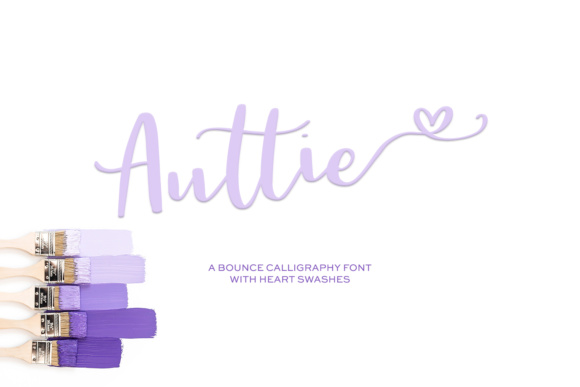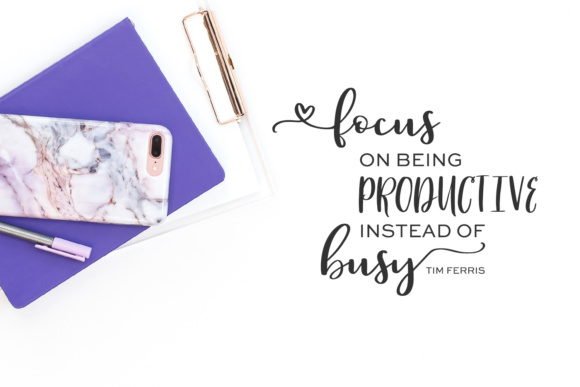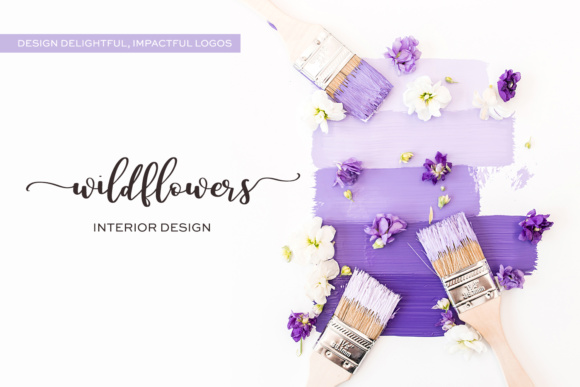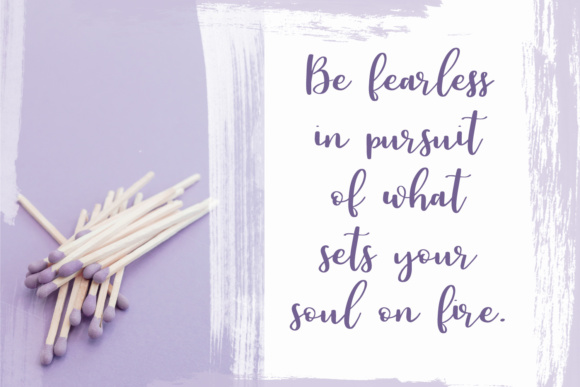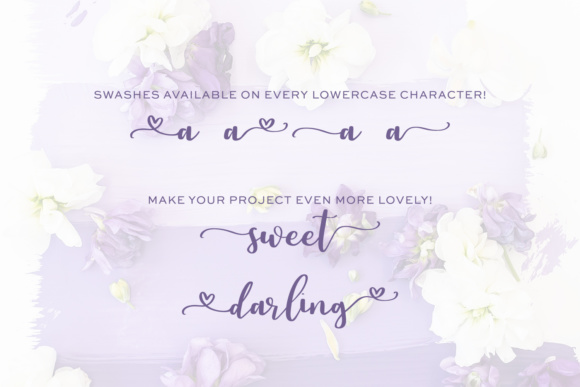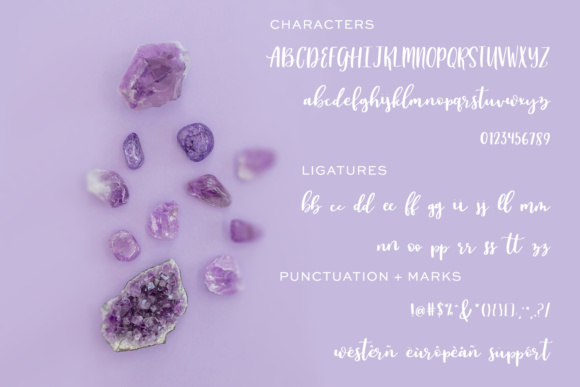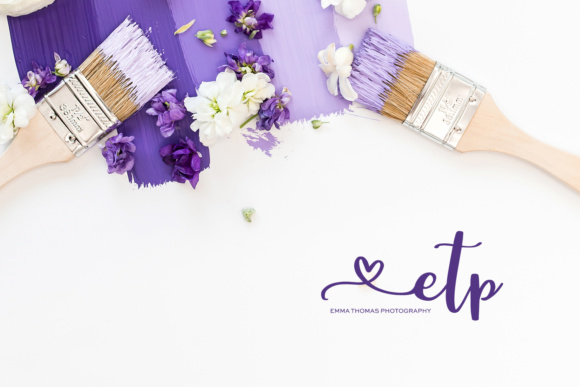
Auttie Font
About Auttie Font
Auttie is a beautiful and sweet hand-lettered script with adorable heart embellishments and lovely, flowy swashes for use in a wide range of delectable projects.